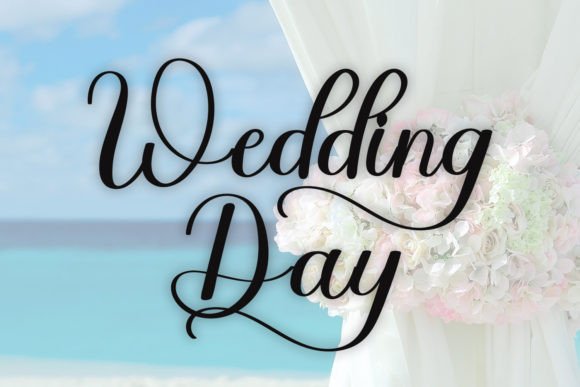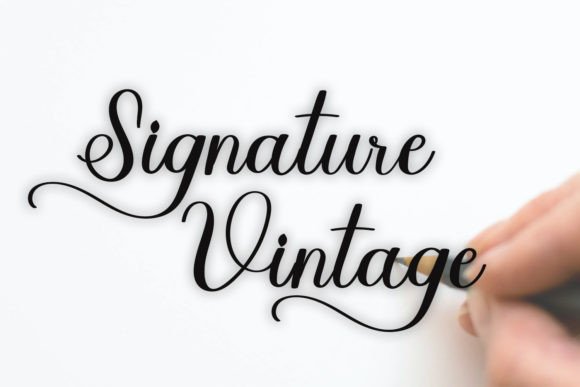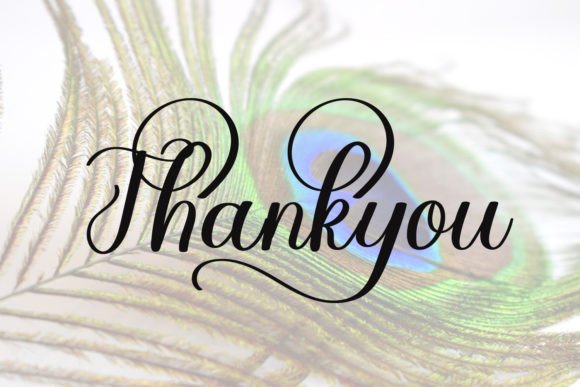
The Designer’s Delight: Uncovering the Beauty of Bahubally Font
I’ll never forget the time I was working on a wedding invitation project, and my client asked for a font that was both elegant and playful. I scoured the internet, trying out font after font, but nothing seemed quite right. That was until I stumbled upon Bahubally Font. ✨ It was love at first sight! The unique blend of modern and traditional elements made it the perfect fit for my project. In this article, I’ll share my experience with Bahubally Font, and explore its features, uses, and alternatives.
A Honest Review of Bahubally Font
- ✨ Fresh and beautiful design that’s perfect for a wide range of design projects
- ✅ Highly versatile, making it suitable for everything from YouTube banners to wedding invitations
- 🎉 Unique and stylish, adding a touch of personality to any design
- 💻 Works seamlessly with various design software, including Canva, Adobe Photoshop, and Illustrator
While Bahubally Font is an excellent choice, there are a few things to keep in mind:
- ⚠️ Some users may find the font a bit too ornate for certain projects, such as minimalist designs
- 🤔 Limited availability of certain OpenType features, such as ligatures and stylistic alternates, in some software
A Practical Guide to Using Bahubally Font
- Experiment with different font sizes, colors, and styles to make the most of Bahubally’s unique design
- Take advantage of OpenType features, such as glyphs and stylistic alternates, to add more personality to your design
Exploring Alternatives to Bahubally Font
If you love Bahubally Font but want to explore other options, here are a few alternatives:
- Pacifico: A beautiful, modern script font perfect for elegant designs, such as wedding invitations and luxury branding
- Great Vibes: A fun, energetic font ideal for creative projects, such as flyers and social media graphics
- Lobster: A classic, elegant font suitable for formal designs, such as event invitations and business cards
- Playfair Display: A sophisticated, luxurious font perfect for high-end branding and advertising
The Story Behind Bahubally Font
Bahubally Font was designed with the intention of creating a unique and versatile font that would cater to a wide range of design needs. The designer aimed to blend traditional and modern elements, resulting in a font that’s both elegant and playful.
Q: What type of projects is Bahubally Font best suited for?
Bahubally Font is perfect for a variety of design projects, including YouTube banners, wedding invitations, ID cards, flyers, and more.
Q: Is Bahubally Font available in different languages?
Bahubally Font may not support all languages, but it does include a range of characters and glyphs to cater to various design needs.